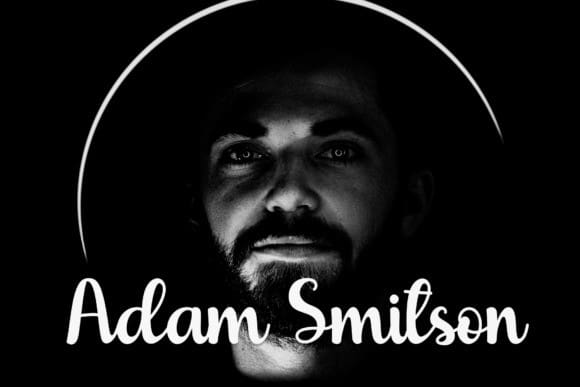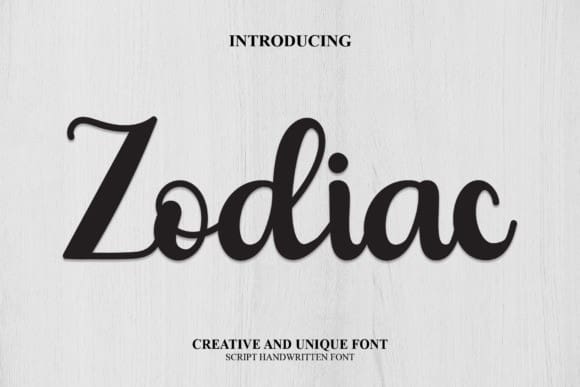
Zodiac Script Font
Zodiac Script Font is an elegant script font with a contemporary feel and perfect form. Not too thin and not too thick, balanced and varied, this font is designed to add beauty to your projects